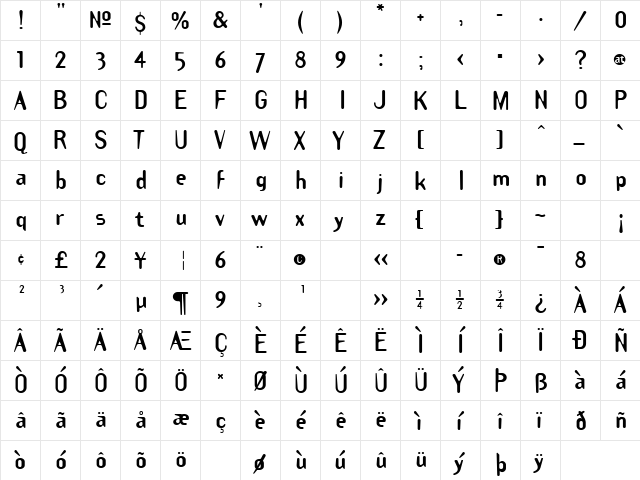
TemplateGothicBold Bold
Design Context for TemplateGothicBold Typeface
TemplateGothicBold has the quiet confidence of well-executed sans-serif typography: versatile, unobtrusive, and dependable at any size. The heavy weight commands attention and anchors typographic hierarchies.
Well-suited to navigation labels, product packaging, and anywhere legibility at scale is essential.
Font Pairing: Use TemplateGothicBold for headlines alongside a lighter-weight sans or serif for body copy to establish clear visual hierarchy.
Pro Tip: Use TemplateGothicBold for UI labels, navigation, and short-form body copy where clean legibility is the priority.